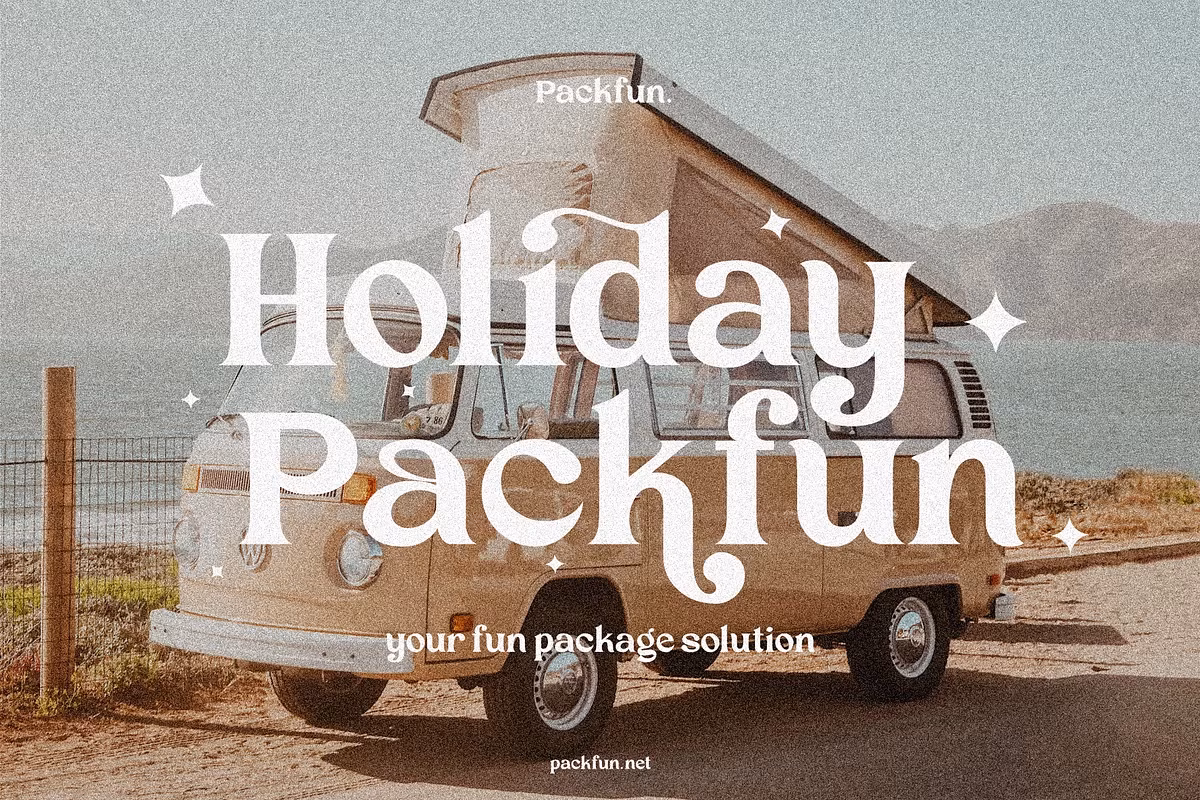
VT Chiffone - Retro Serif Free Download
Enhance your designs with VT Chiffone - Retro Serif Font Free Download, a charming and vintage-inspired typeface ideal for nostalgic projects. You need to purchase this font for commercial use. However, you can easily explore VT Chiffone - Retro Serif Font Free Download for testing or personal purposes. Its bold curves and elegant serifs capture the essence of retro typography, perfect for logos, branding, editorial designs, posters, and vintage-themed content. Designers appreciate its classic flair and readability, making it a must-have for projects aiming for timeless appeal. Download VT Chiffone - Retro Serif Font Free Download today and elevate your creative work effortlessly.